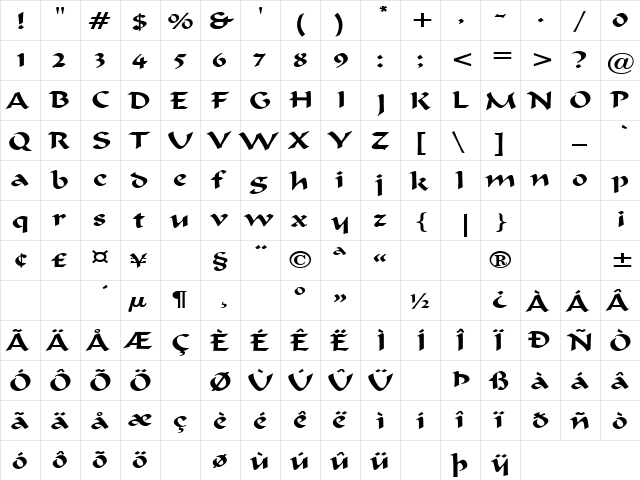
Sunflower 4 Regular
Design Context for Sunflower 4 Typeface
Sunflower 4 is a composed and adaptable typeface that performs quietly and consistently across a wide range of design contexts.